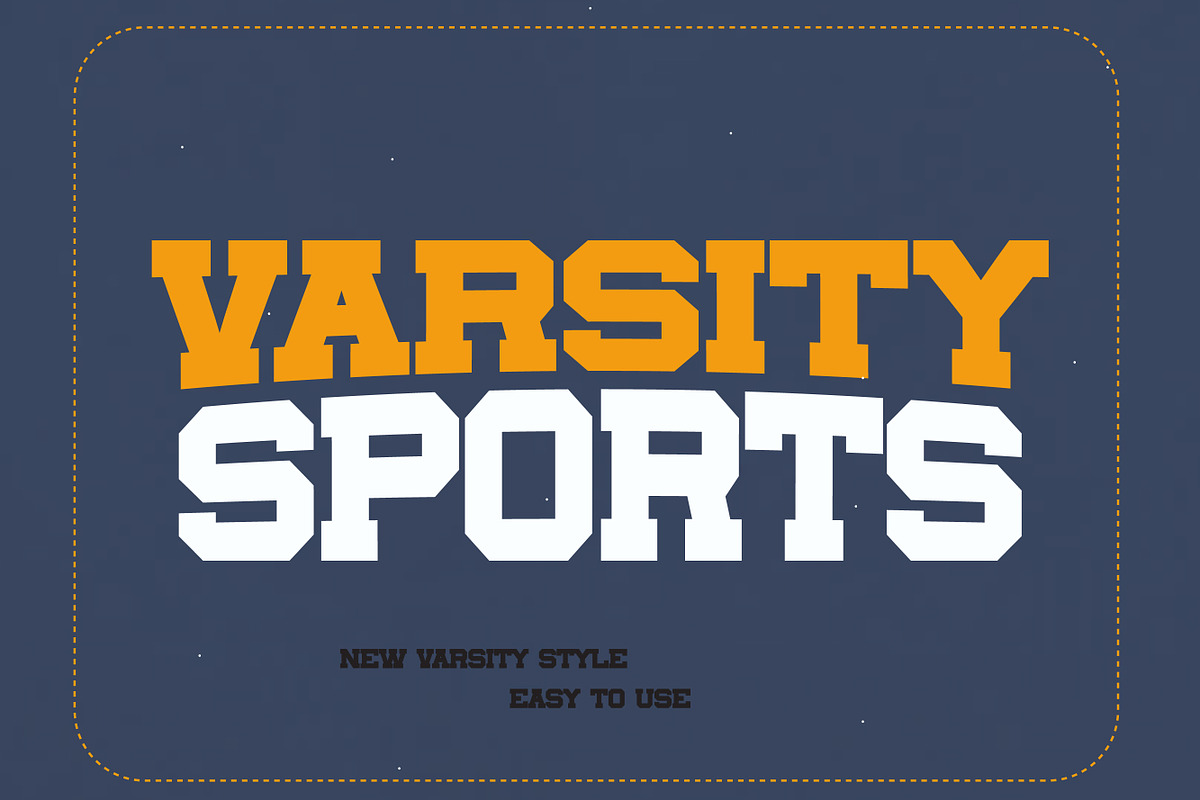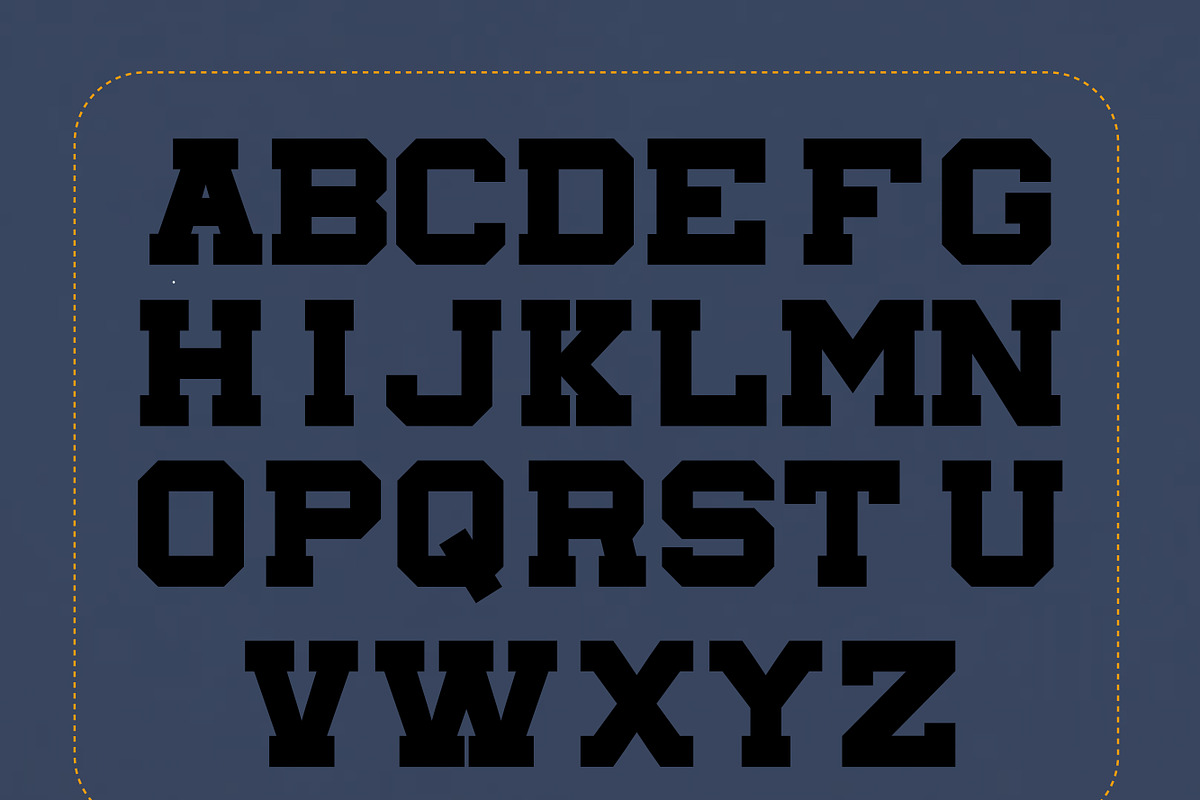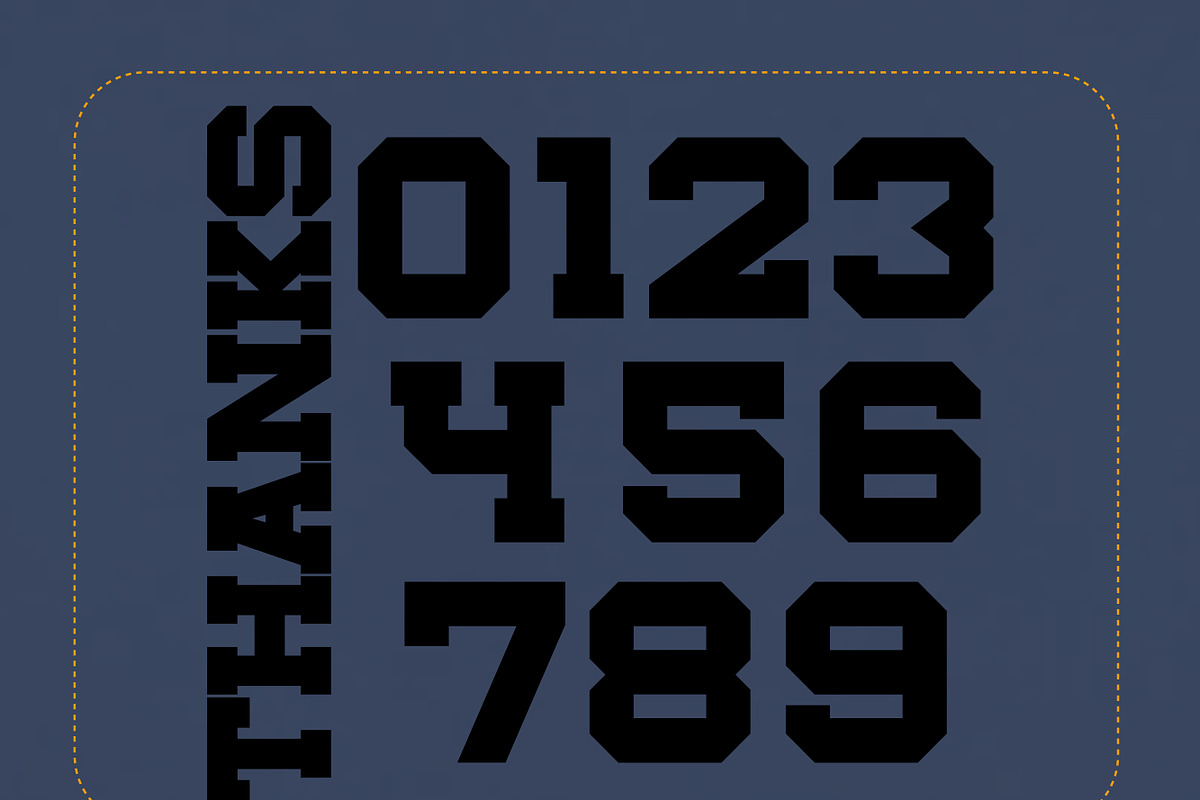
Varsity Sports | Tournaments TEAM
Perfect for varsity sports-themed design projects, this versatile font features and anything that needs a friendly touch. Perfectly fit for branding, logo, varsity things, greeting cards, fashion, book, study purpose, and anytime you want your design.